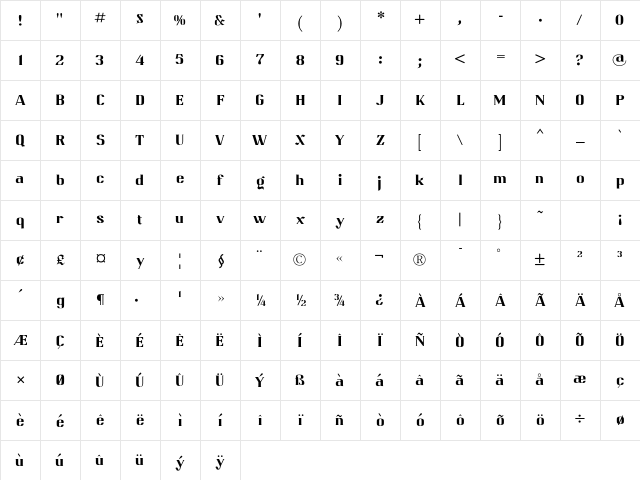
Rigotolio Regular
Rigotolio Family
Design Context for Rigotolio
Rigotolio is a composed and adaptable typeface that performs quietly and consistently across a wide range of design contexts.